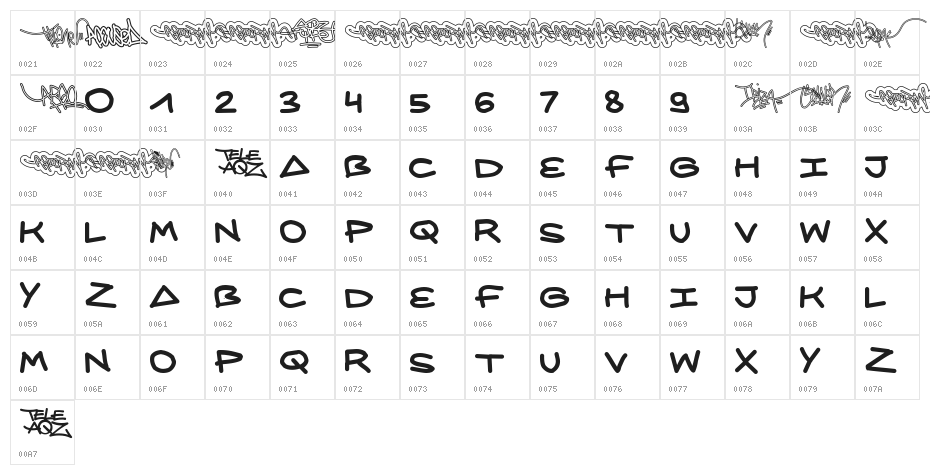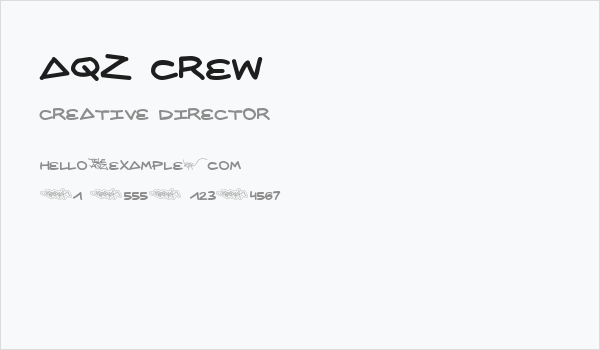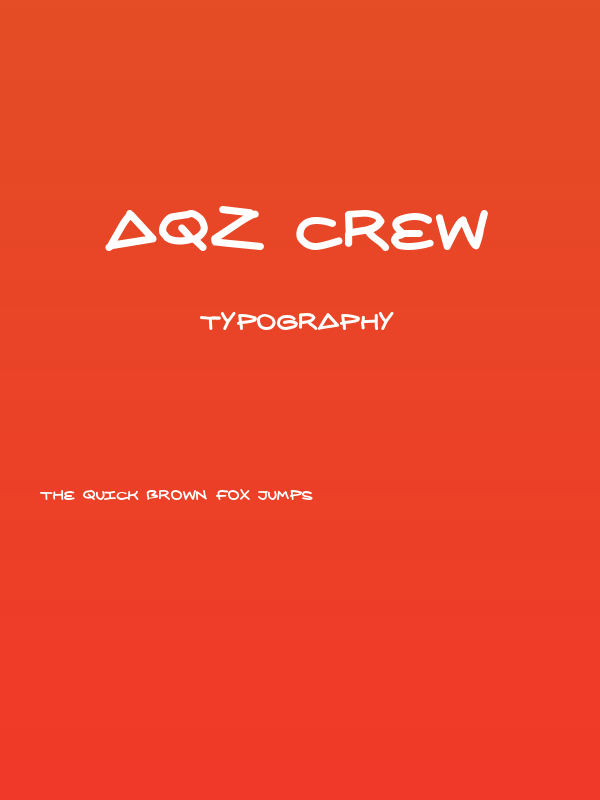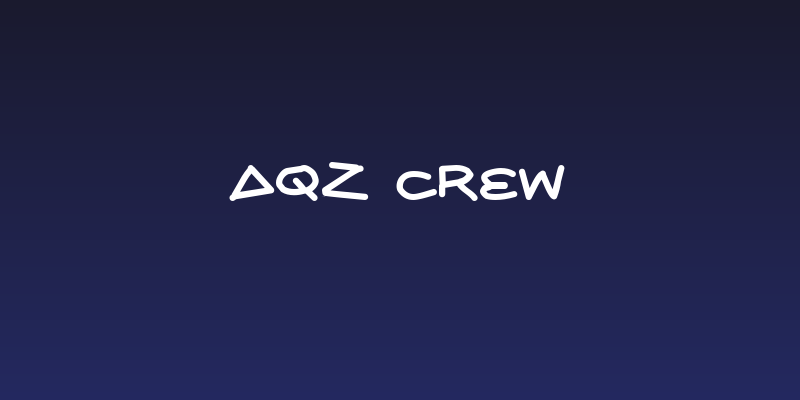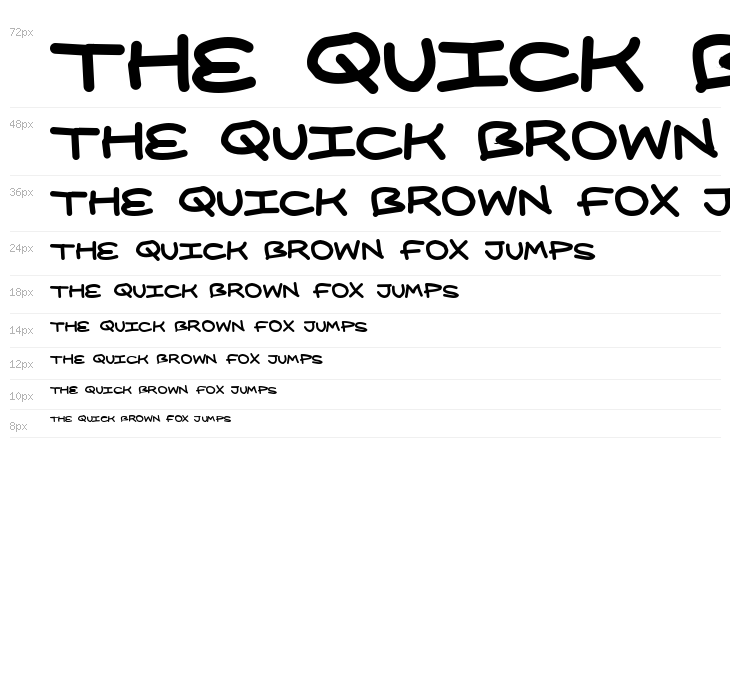
AQZ crew Font
AQZ crew Description
This font features a playful and bold handwritten style, characterized by its rounded and slightly irregular letterforms. The uppercase letters are distinct with a casual flair, while the lowercase letters maintain a consistent flow, adding to the font's approachable and friendly appearance. The numerals are well-integrated, sharing the same boldness and style as the letters. This font's unique personality makes it suitable for projects that require a touch of whimsy and creativity. Its bold strokes and rounded edges give it a modern yet informal look, perfect for capturing attention.
| Overall Style | Playful, Modern |
| Proposed Projects | Ideal for children's books, playful branding, greeting cards, and creative posters. |